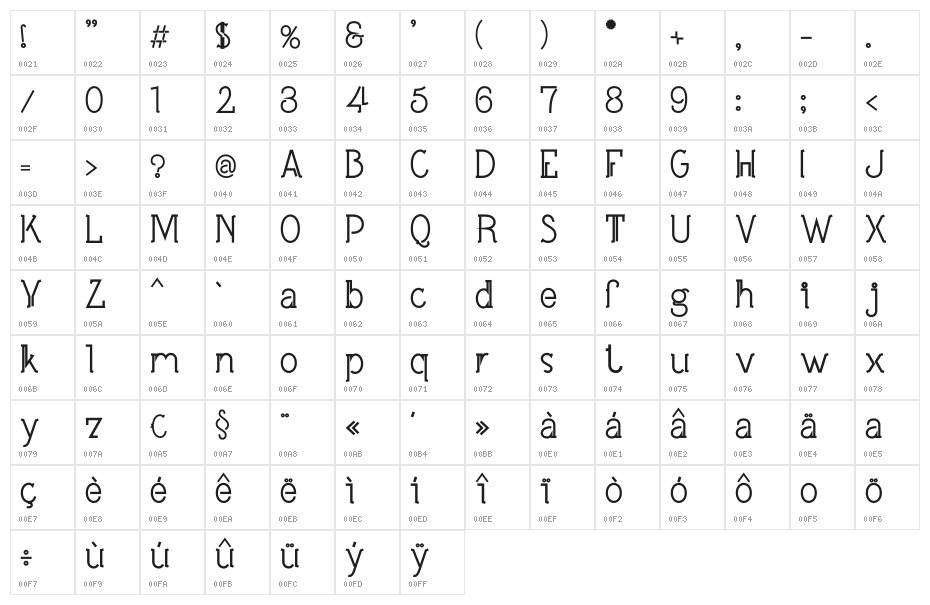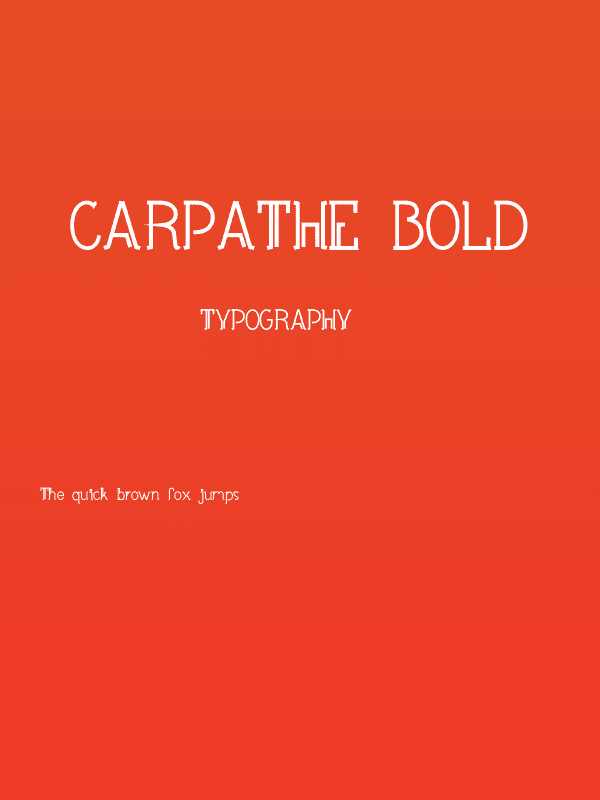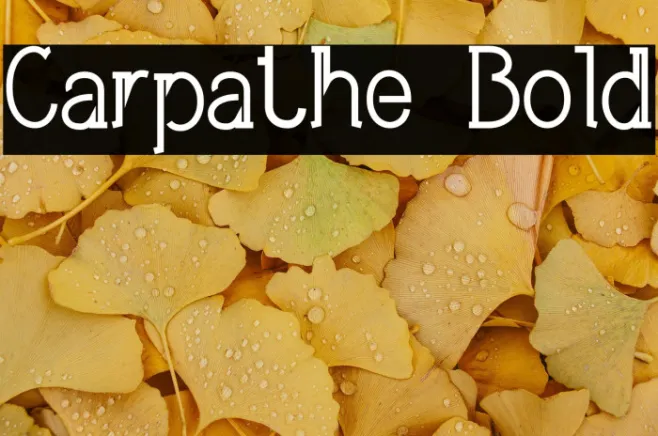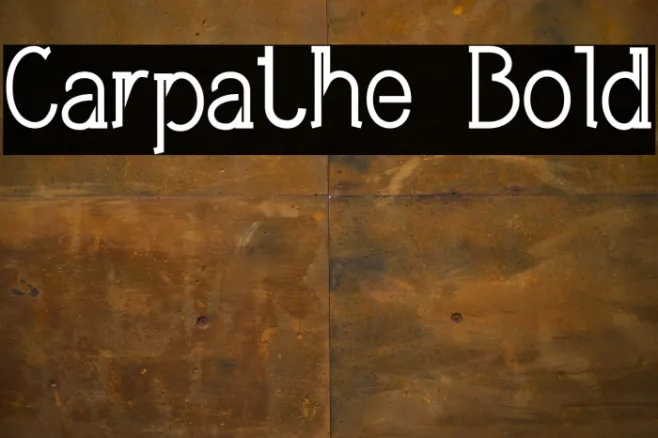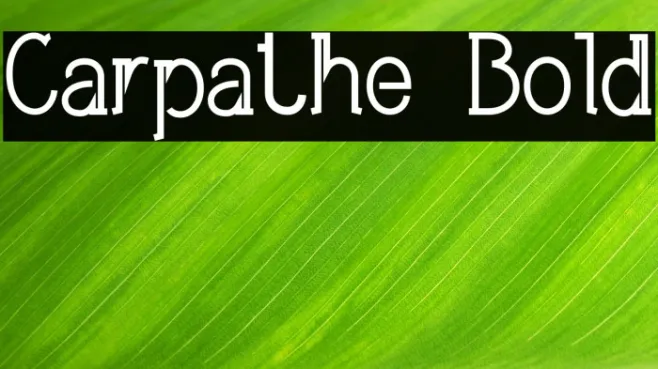
Carpathe Bold Font
Carpathe Bold Description
This font features a unique blend of geometric and decorative elements, creating a striking visual appeal. The uppercase letters are characterized by their bold, angular shapes with distinct serifs that add a touch of elegance. The lowercase letters maintain a consistent style, with rounded edges and a playful yet sophisticated appearance. Numbers are designed with a similar aesthetic, ensuring uniformity across all characters. Special characters are creatively styled, adding to the font's overall charm. This font's design is both modern and classic, making it versatile for various applications.